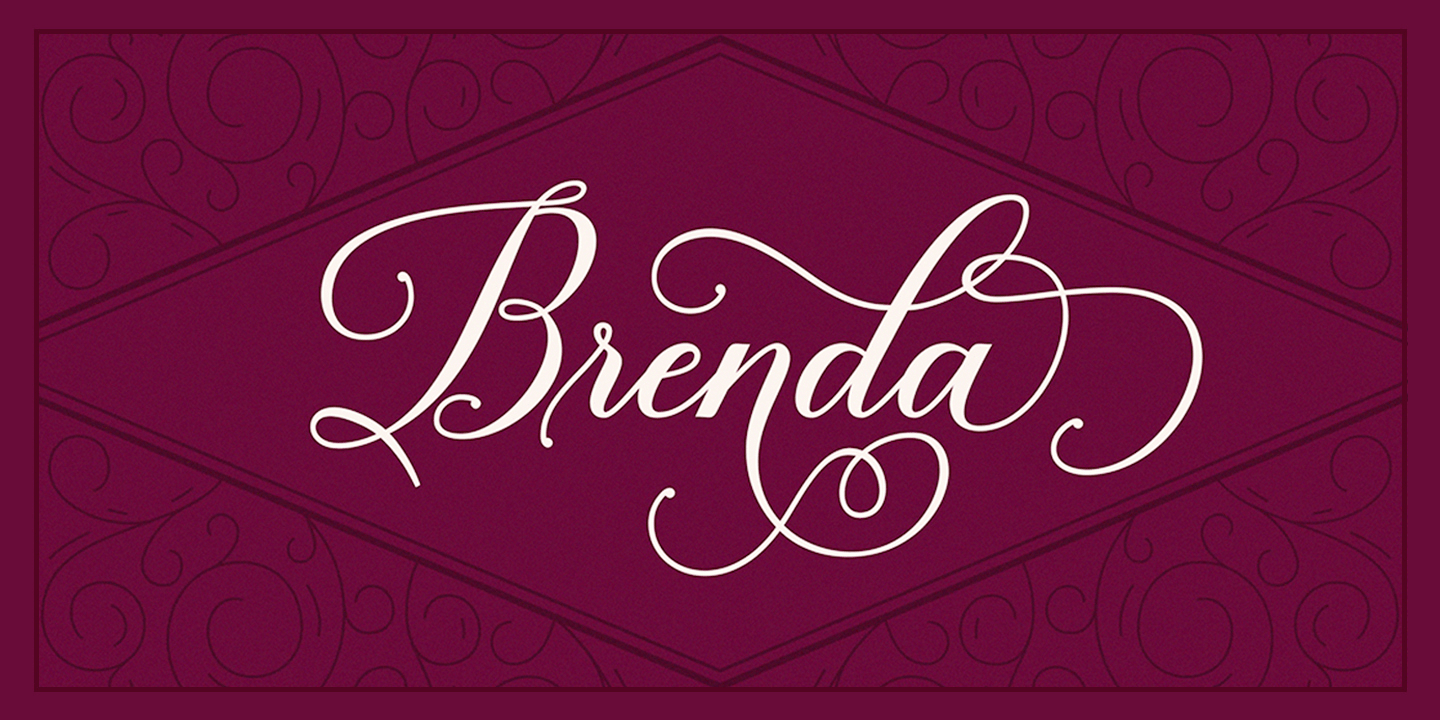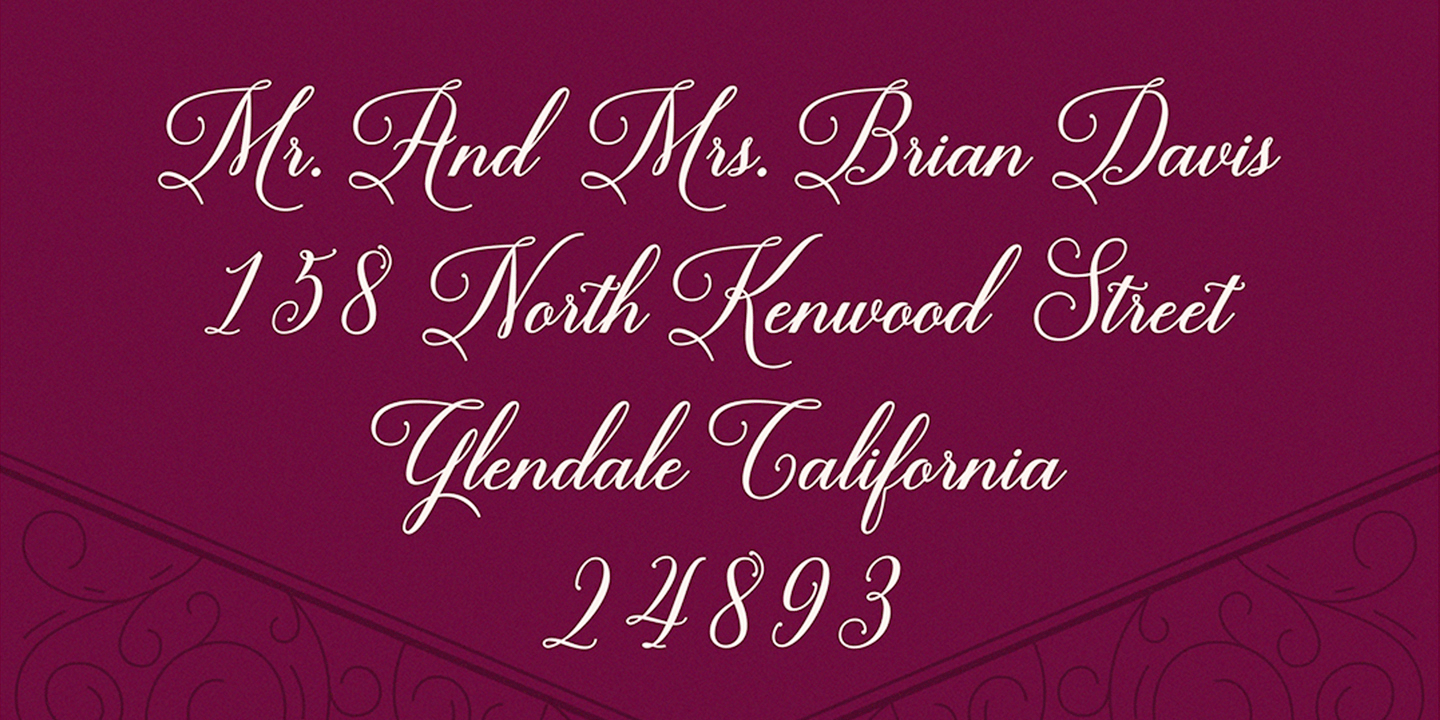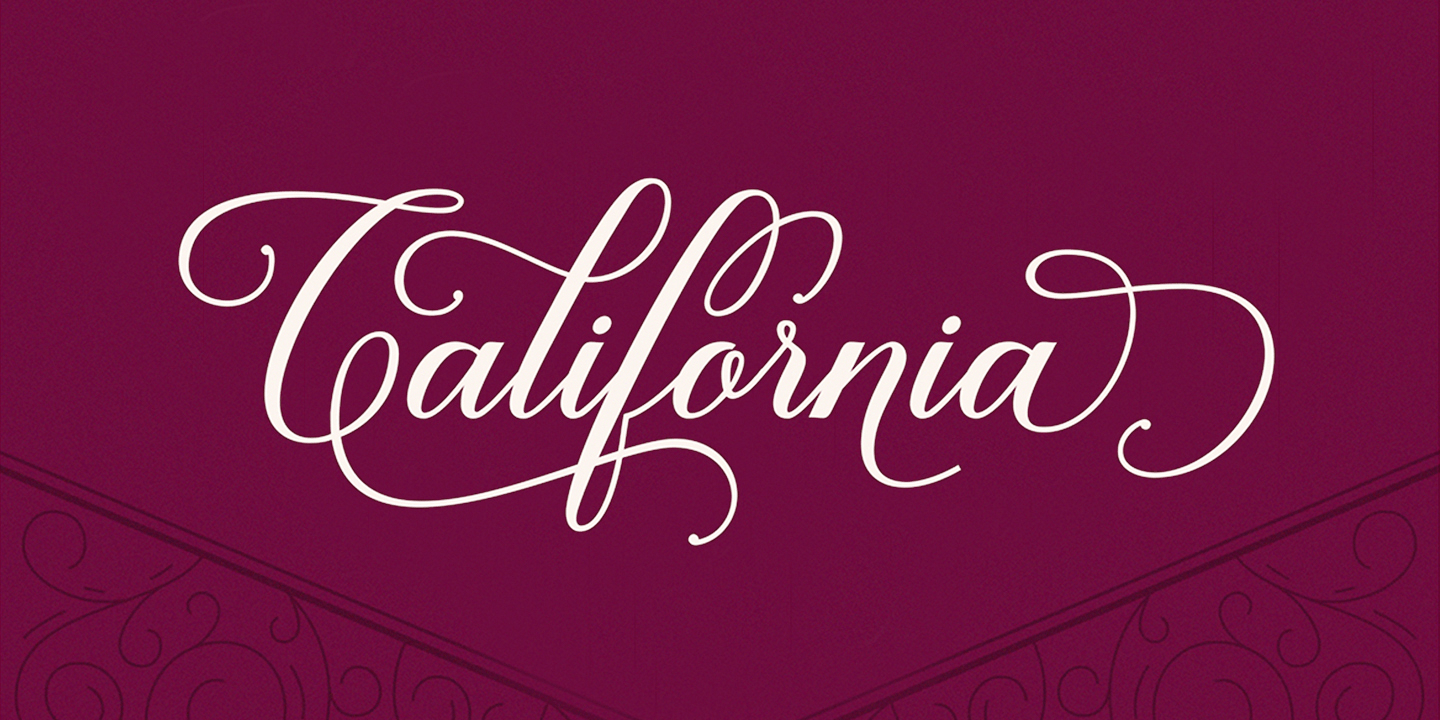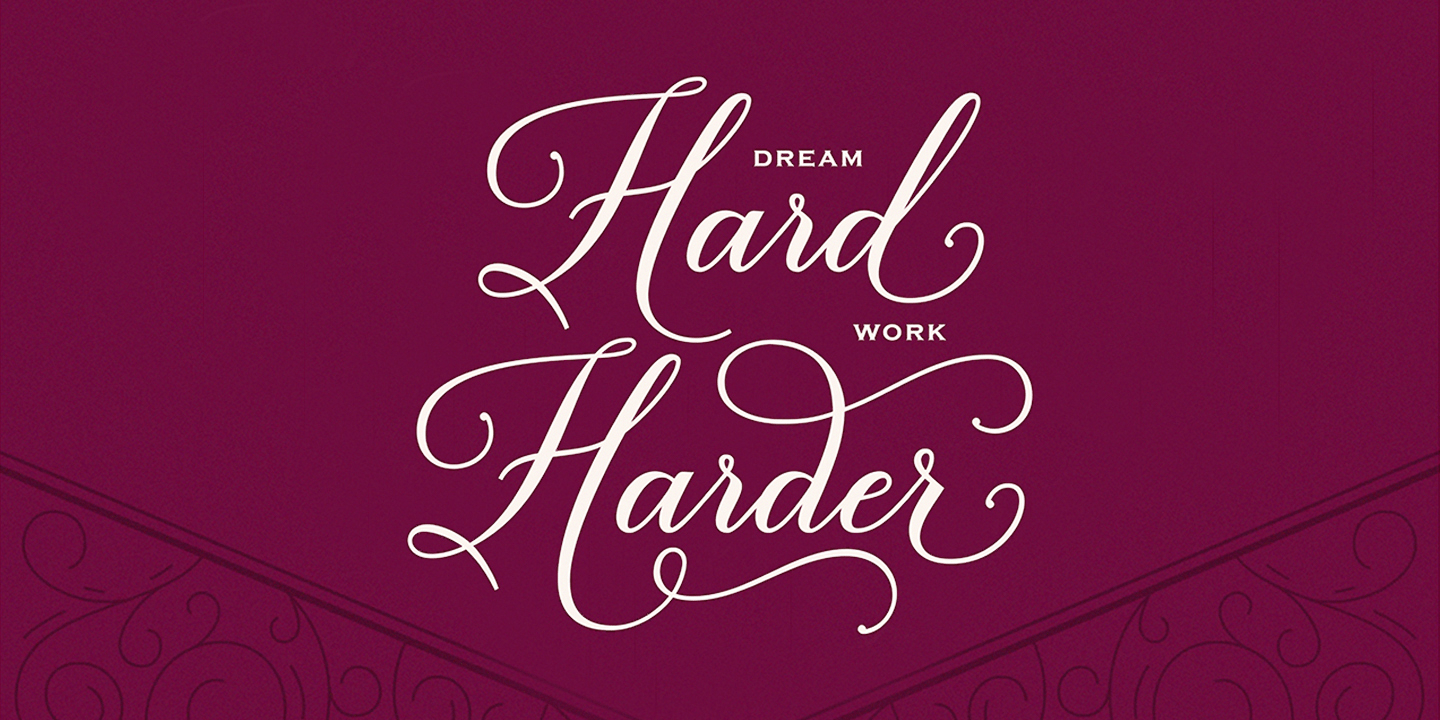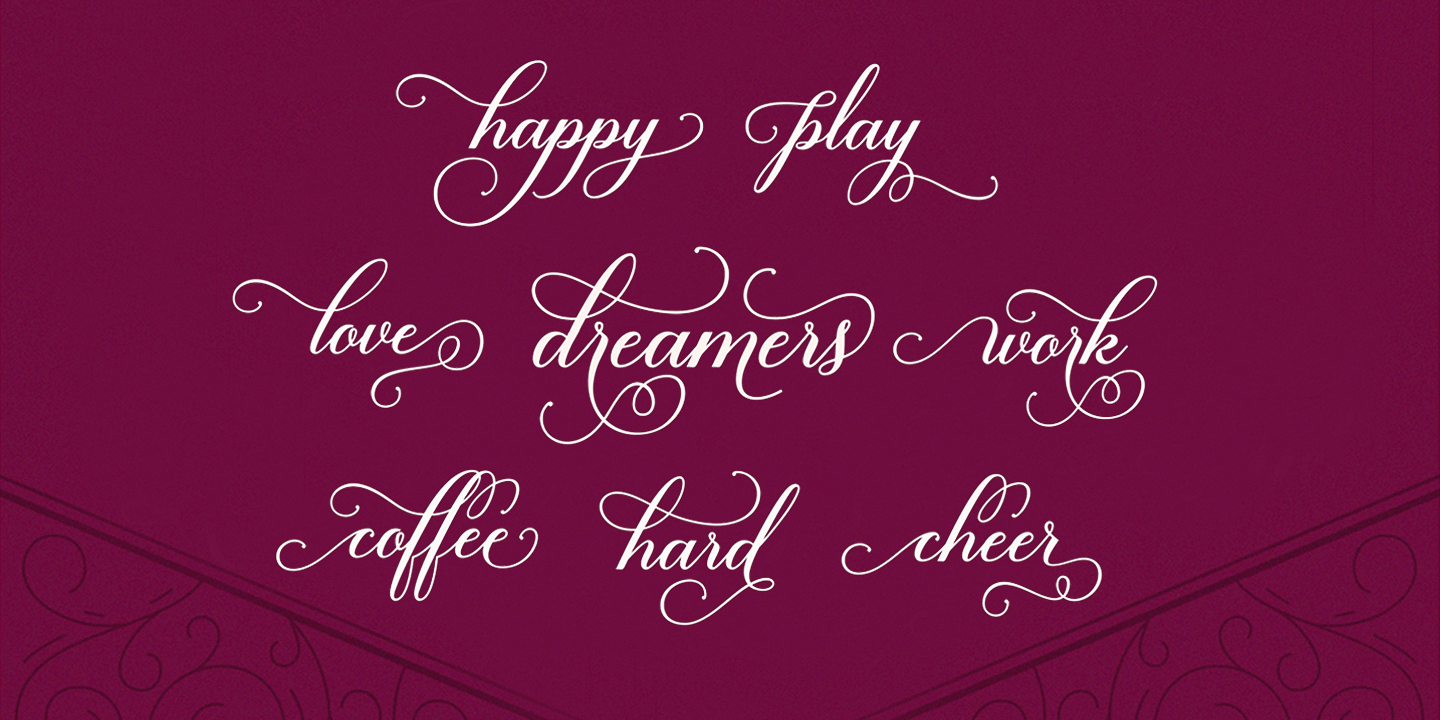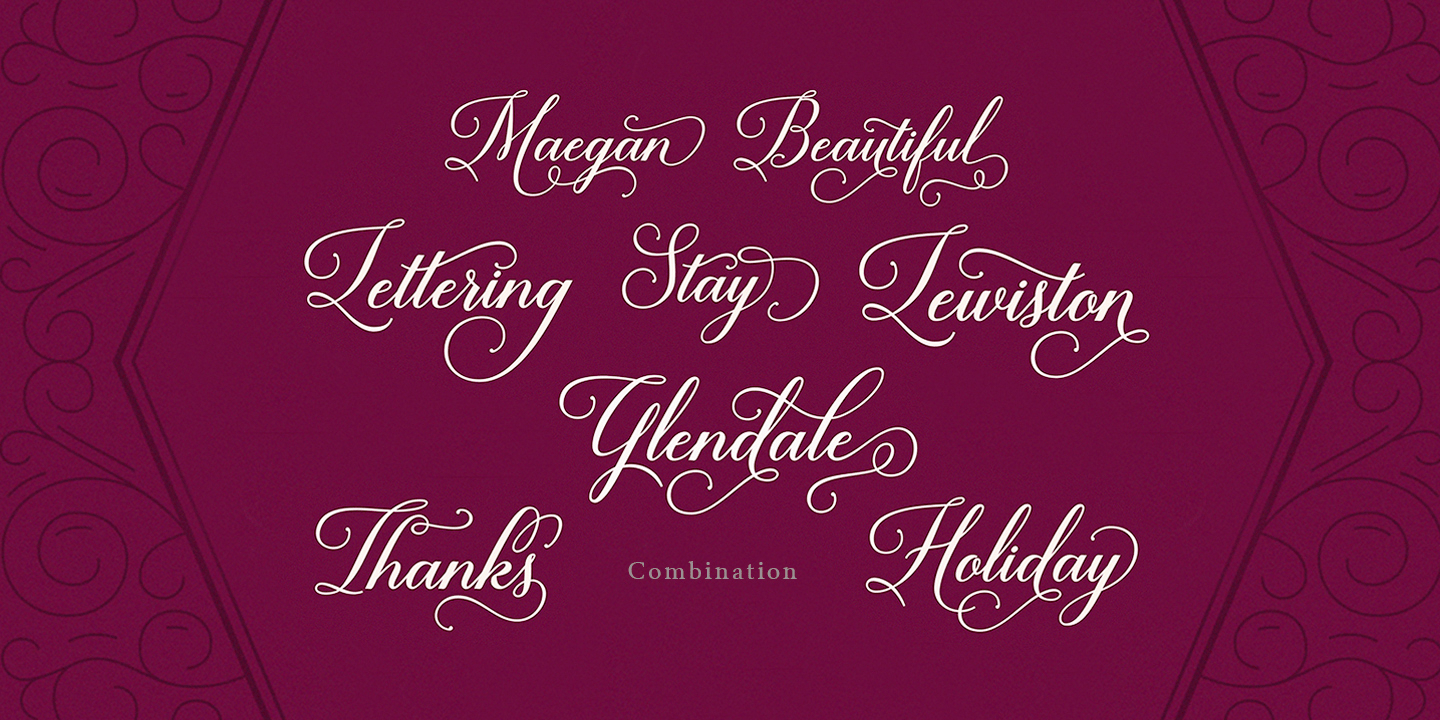
Brenda Script
Brenda Script is a contemporary formal script typeface with classic roots and an elegant touch. It can be used for various purposes such as logos, wedding invitations, headings, t-shirts, letterhead, signage, labels, newsletters, posters, badges, etc.
Brenda Script features 405+ glyphs and 160 alternate characters, including initial and terminal letters, swashes, alternates, ligatures, and multiple language support.